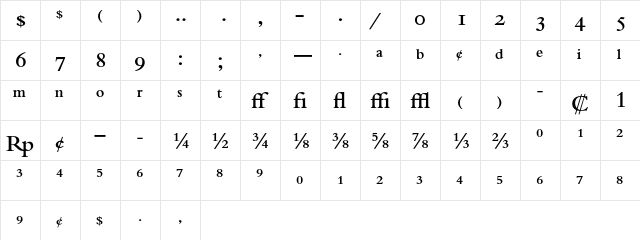
Bembo Semibold Expert Font Preview
Bembo Semibold Expert
Bembo Semibold Expert Font Details
| Style | Semibold Expert |
Design Context for Bembo Typeface
Bembo offers clean, dependable letterforms without strong stylistic allegiance, making it a practical choice for designers who need flexibility. Its bold stroke weight gives it real presence on the page.